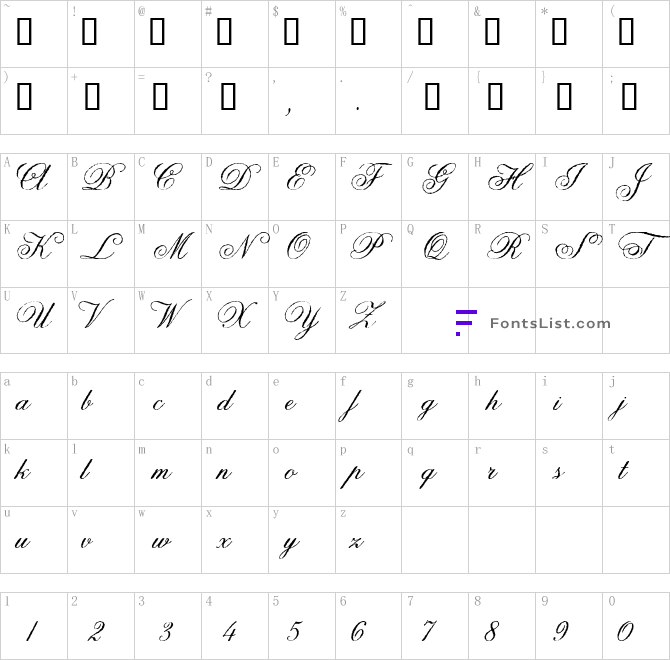
- Font Name:Anglia Olde Concise
Anglia-Olde-Concise.ttf is a very beautiful artistic font, Anglia-Olde-Concise.ttf is widely used in the design and printing of various books and pictures,Anglia-Olde-Concise.ttf has a strong visual impact,Anglia-Olde-Concise.ttf is a commonly used font in newspapers, magazines and books, and is used in posters, e-commerce Poster design, store design, logo design, font design and other fields.Anglia-Olde-Concise.